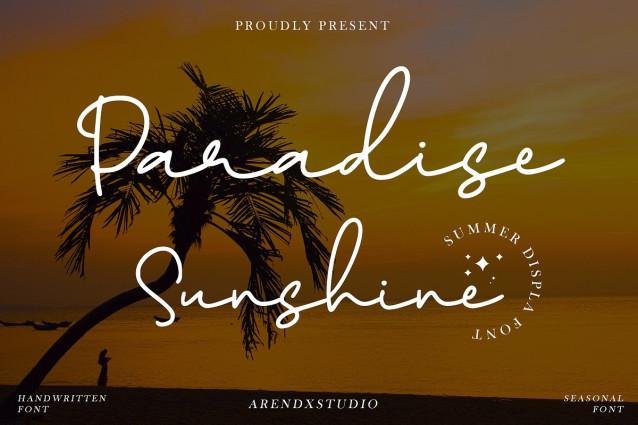
Paradise Sunshine Font
Paradise Sunshine Font – Handwritten Font is a font with distinctive handwritten characters perfect for branding projects, logos, wedding designs, media posts, advertisements, product packaging, product designs, labels, photography, watermarks, invitations, stationery, and any project who need handwritten dishes.